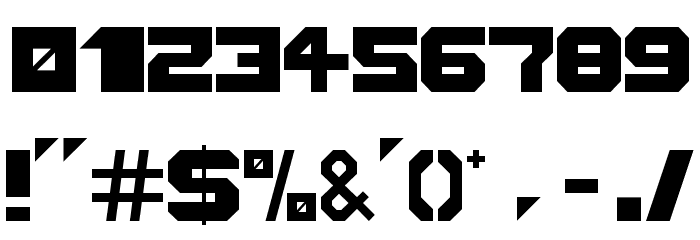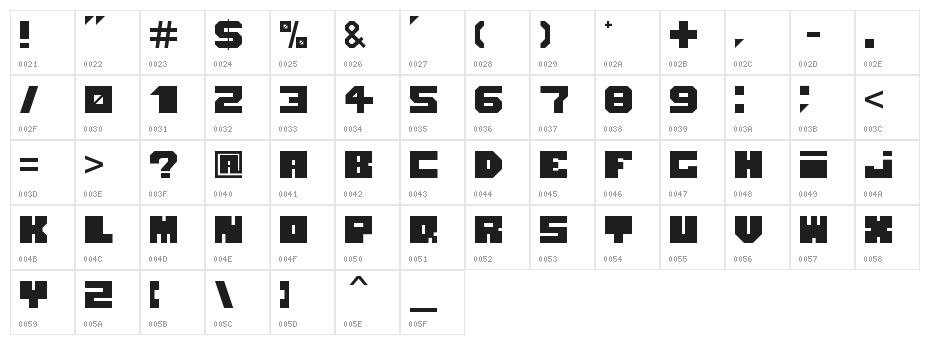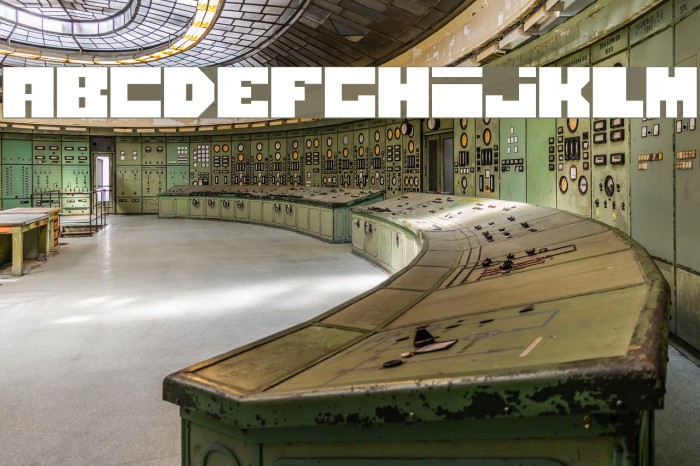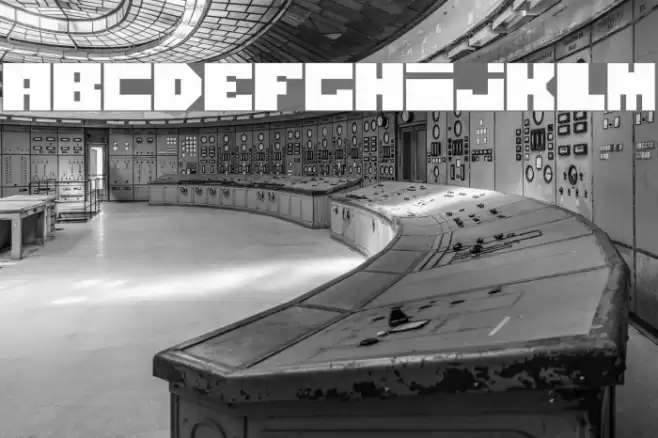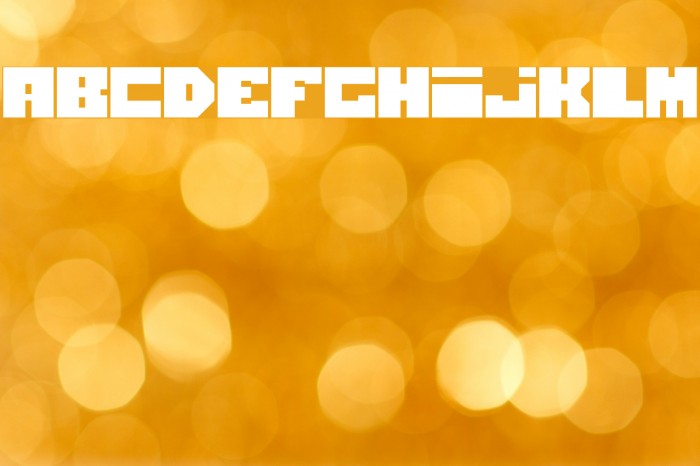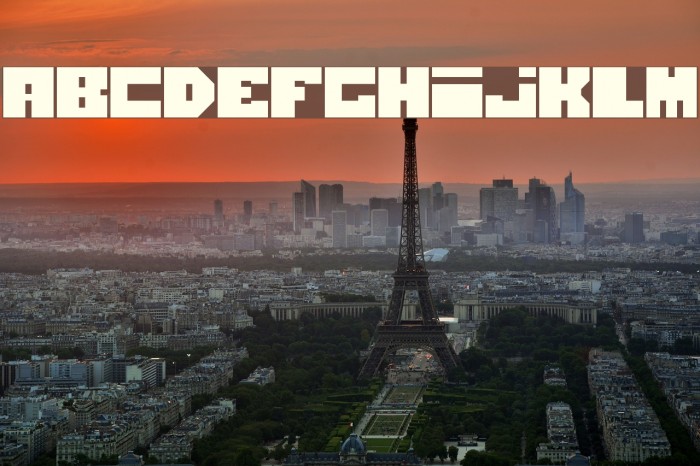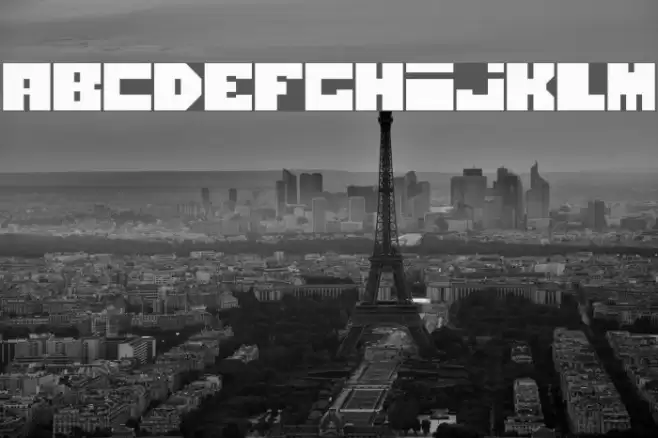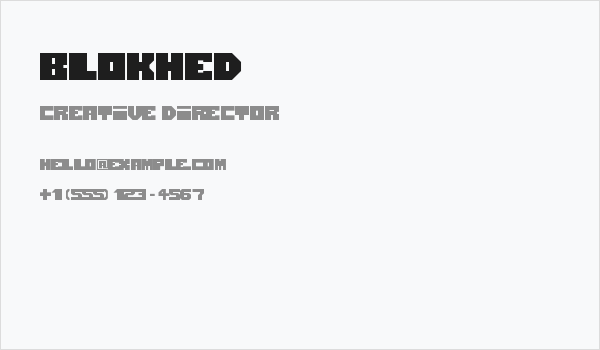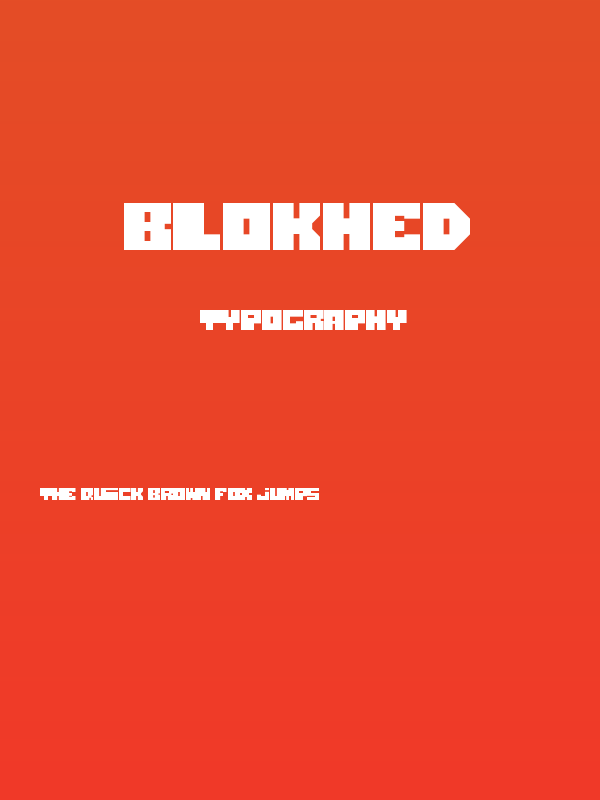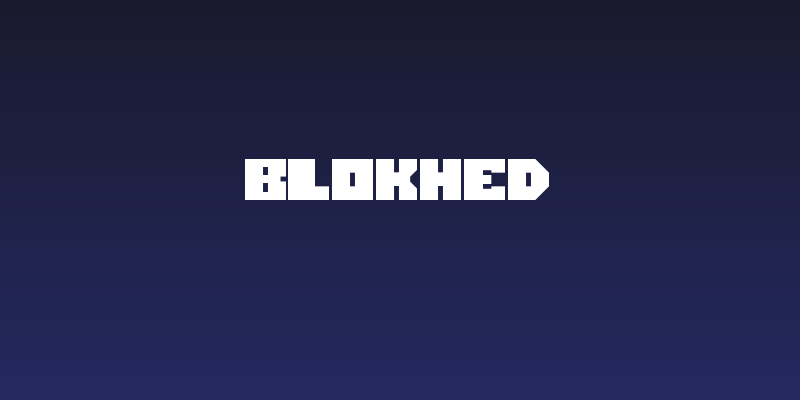
Blokhed Font
Blokhed Description
This font features a bold, geometric design with a blocky, angular appearance. Each character is constructed with sharp edges and straight lines, giving it a futuristic and industrial feel. The uppercase and lowercase letters share a consistent style, maintaining the same width and height, which contributes to a uniform look. The numbers and special characters are designed to match the overall aesthetic, ensuring a cohesive appearance across all glyphs. The font's heavy weight and strong presence make it ideal for attention-grabbing designs.
| Proposed Projects | Ideal for video game titles, tech-themed posters, and industrial branding. |